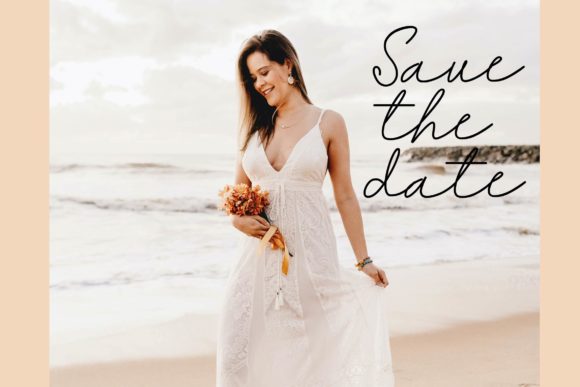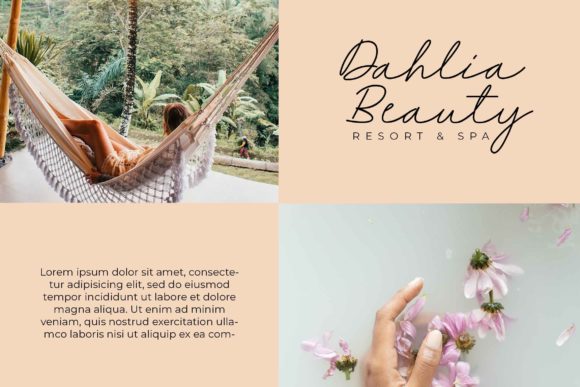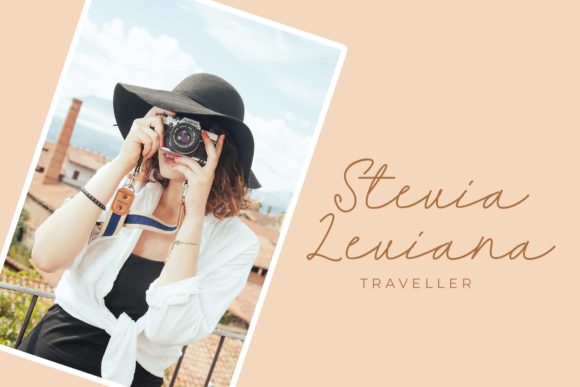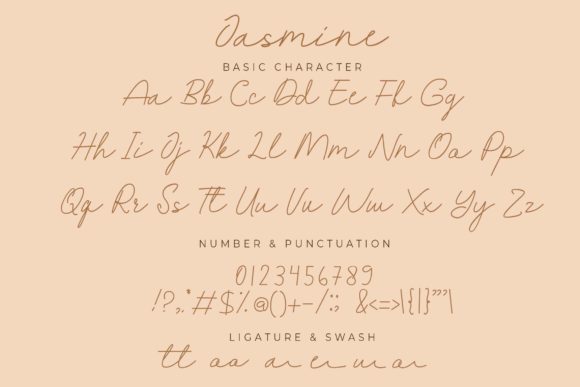
About Jasmine Font
Shally Script is a lovely and delicate script font that exudes elegance and class. This font was particularly crafted for those who need a beautiful and refreshing look to their designs.